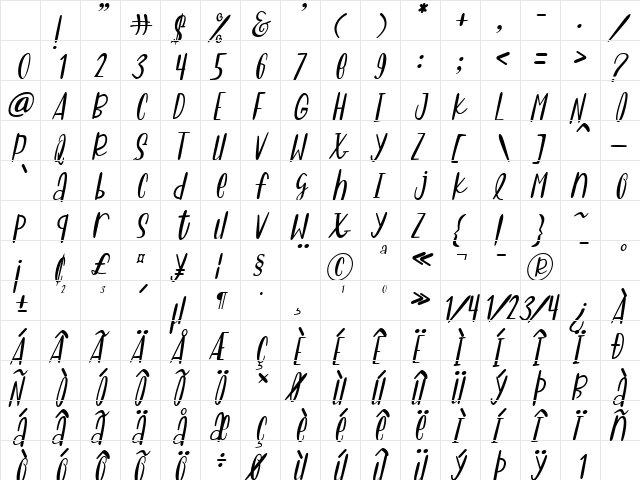
Complete Sweet Panda Italic glyph index. Displaying only characters natively supported by Sweet Panda Italic font.
Sweet Panda is a composed and adaptable typeface that performs quietly and consistently across a wide range of design contexts. The slanted form adds forward momentum and visual energy.
Pro Tip: Use Sweet Panda for emphasis, pull quotes, and subheadings where its slanted energy can add rhythm to the layout.